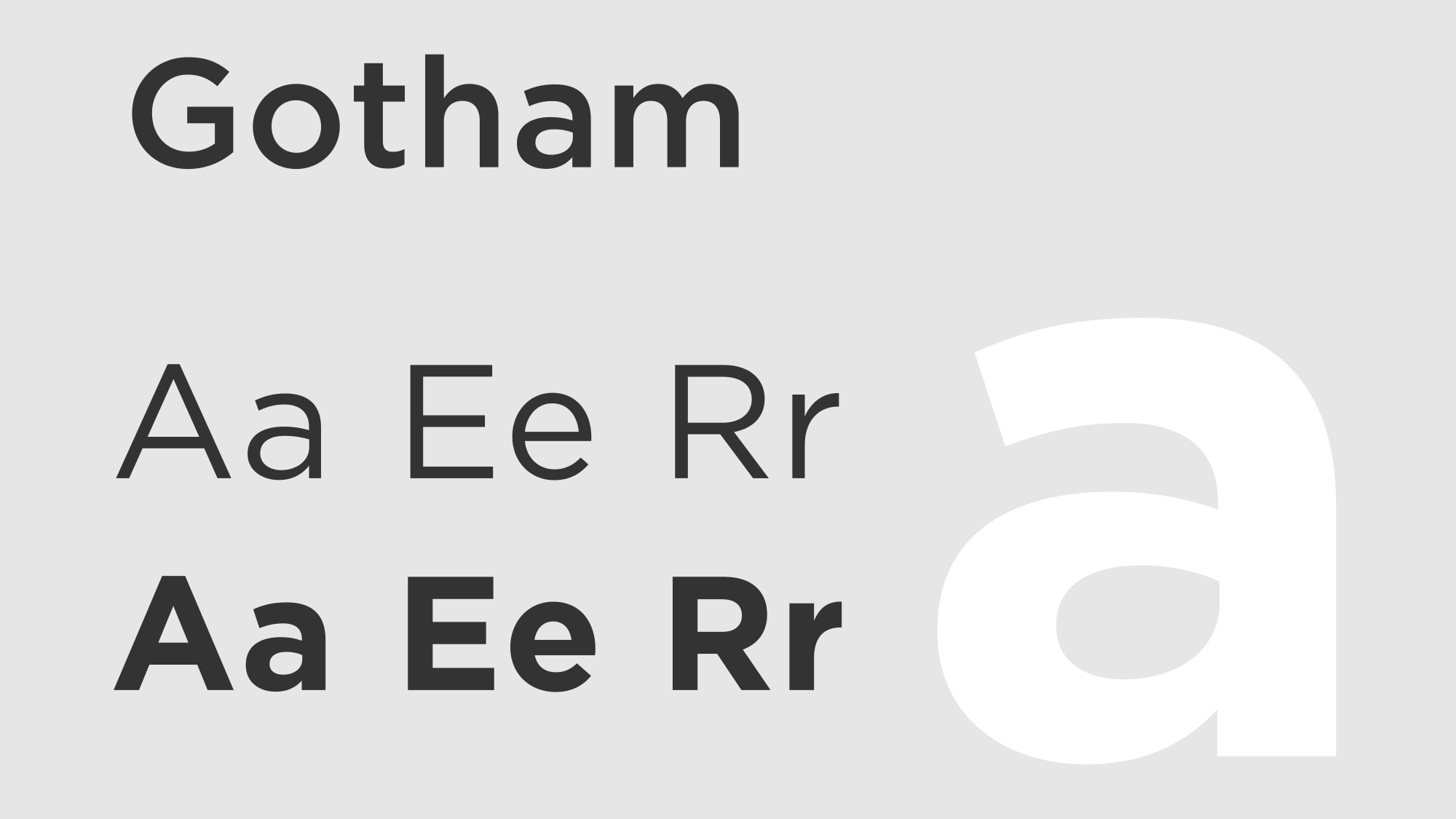
Gotham Font For Commercial Use . if you download the font for free, you do not have a commercial license for it and can only use it for personal use. You can get the font from hoefler's site at. Gotham contains 140 styles and. According to the hoefler & co. Adaptable for various media, including print, web, and branding projects. an unmannered sans serif with a large lowercase, clear gestures, and generous fit, gotham is naturally at home in the widest range of sizes. all 18 styles in gotham condensed 1 and gotham condensed 2, together at a $69 savings. if you want to legally use the typeface gotham as a webfont, you have to license it through hoefler & co. gotham is not entirely free for commercial use. site, gotham is a commercial font,. gotham is a commercial font published by hoefler & co.
gotham is not entirely free for commercial use. if you download the font for free, you do not have a commercial license for it and can only use it for personal use. an unmannered sans serif with a large lowercase, clear gestures, and generous fit, gotham is naturally at home in the widest range of sizes. Gotham contains 140 styles and. site, gotham is a commercial font,. gotham is a commercial font published by hoefler & co. Adaptable for various media, including print, web, and branding projects. if you want to legally use the typeface gotham as a webfont, you have to license it through hoefler & co. According to the hoefler & co. all 18 styles in gotham condensed 1 and gotham condensed 2, together at a $69 savings.
Gotham Font For Commercial Use an unmannered sans serif with a large lowercase, clear gestures, and generous fit, gotham is naturally at home in the widest range of sizes. an unmannered sans serif with a large lowercase, clear gestures, and generous fit, gotham is naturally at home in the widest range of sizes. According to the hoefler & co. You can get the font from hoefler's site at. gotham is a commercial font published by hoefler & co. if you download the font for free, you do not have a commercial license for it and can only use it for personal use. gotham is not entirely free for commercial use. if you want to legally use the typeface gotham as a webfont, you have to license it through hoefler & co. all 18 styles in gotham condensed 1 and gotham condensed 2, together at a $69 savings. site, gotham is a commercial font,. Gotham contains 140 styles and. Adaptable for various media, including print, web, and branding projects.